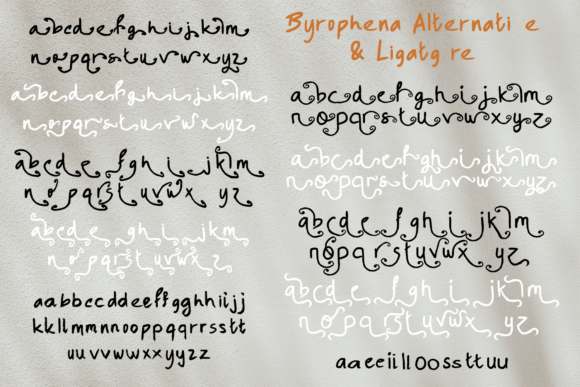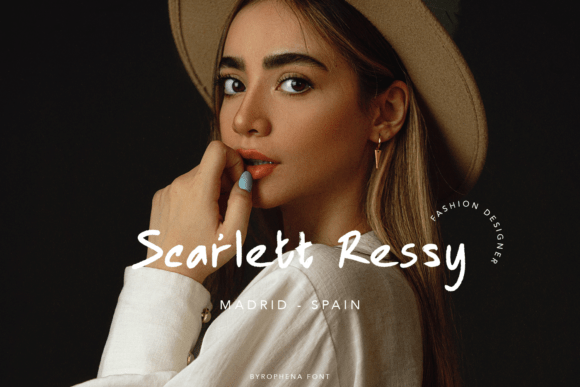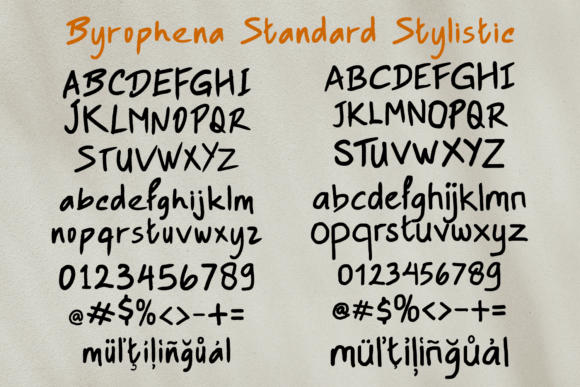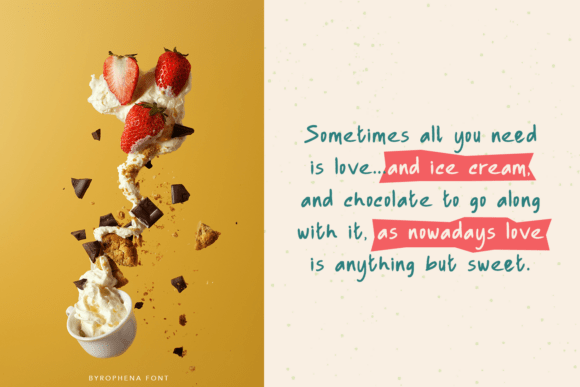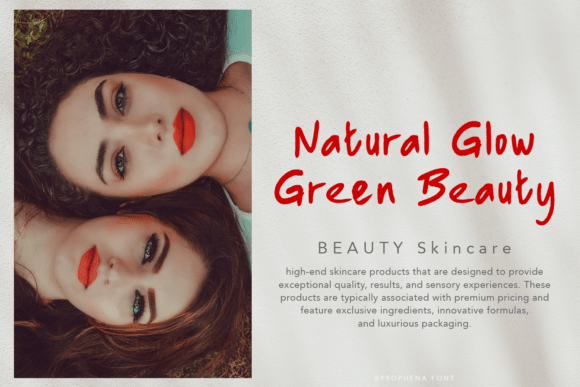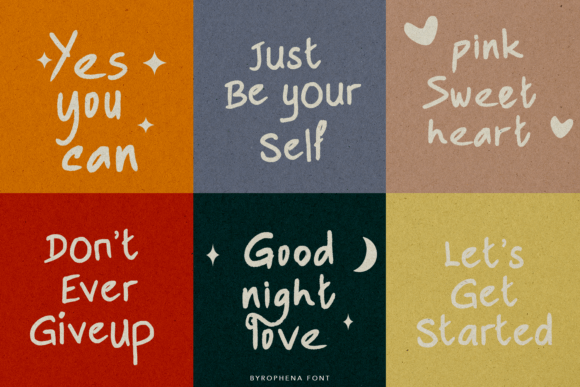
The Birth of a Beautiful Script
Imagine you’re brainstorming ideas for a new skincare brand, and you stumble upon the perfect quote that captures the essence of your brand’s mission. You can almost see the words dancing on a beautiful, handwritten sign in your mind’s eye. But how do you bring that vision to life?
Enter the Byrophena Font, a dynamic duo of handwritten fonts that combines natural texture with expressive form. This stylish font is designed to mimic quick, confident handwriting, with just the right amount of irregularity to make every design feel personal and unique. With its two complementary styles and decorative alternates, Byrophena Font is the perfect tool for designers looking to add warmth and authenticity to their designs.
Whether you’re working on a logo, quote, or lifestyle product, the Byrophena Font delivers effortless modern style and versatility, making it an invaluable addition to any designer’s toolkit.
Byrophena Font Key Features
- Unique Characteristic: Unique, modern script font with elegant and flowing lines, ideal for creative and artistic projects
Byrophena Font Review
Overall, I’m impressed with Byrophena Font, but it’s not without its quirks. Let’s dive into what works well and what doesn’t.
- Unique, elegant design that’s perfect for high-end branding
- Excellent legibility, even at small font sizes
- Supports a wide range of languages, making it a great choice for global brands
- May be too ornate for some designs, especially those requiring a more modern or minimalist look
- Lack of bold weight options, which can limit its versatility
- May not be the best choice for text-heavy content, as its ornate details can make it difficult to read
Byrophena Font is a beautiful, elegant choice for designers looking to add a touch of sophistication to their projects. While it may not be the best fit for every design, it’s a great option for those requiring a high-end, luxurious feel. With some careful consideration of its limitations, Byrophena Font can be a valuable addition to any designer’s toolkit.
Getting the Most Out of Byrophena Font
To get the most out of Byrophena Font, use it in combination with other elegant fonts for a sophisticated look.
Experiment with different font sizes and colors to create visual hierarchy and emphasis.
Byrophena Font is ideal for:
Corporate branding and marketing materials
Magazine and book covers
Compared to Byrophena Font, Lato has a more modern and minimalist design, making it ideal for modern and sleek designs. Byrophena Font, on the other hand, has a more traditional and classic feel.
Can I customize Byrophena Font?
Yes, Byrophena Font is a highly customizable font. You can adjust the font’s weight, style, and spacing using various font editing tools, such as Adobe Illustrator or FontForge. Additionally, you can also use our font’s built-in features, such as ligatures and swashes, to add unique touches to your design.